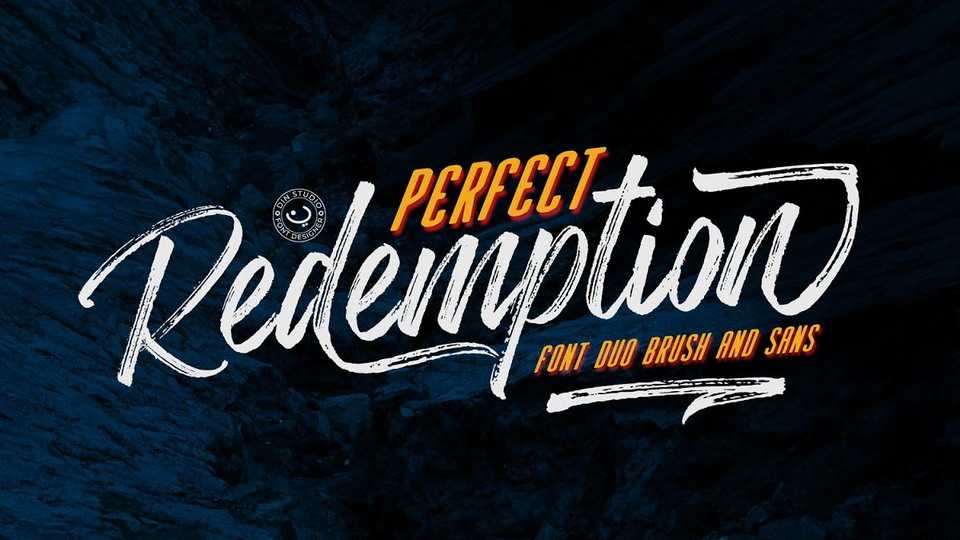
Download Perfect Redemption font, a beautiful handwritten script font made with natural brush. The texture from the brush font will make your design more beautiful and powerful.
Designer: Din Studio